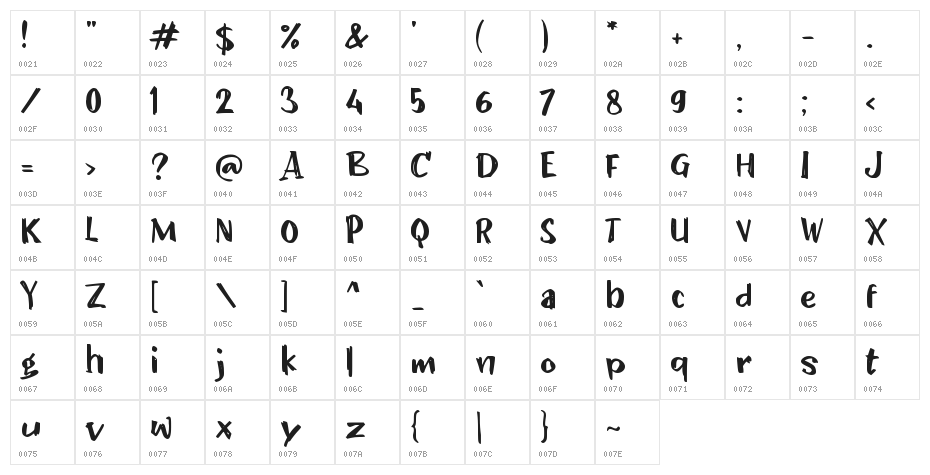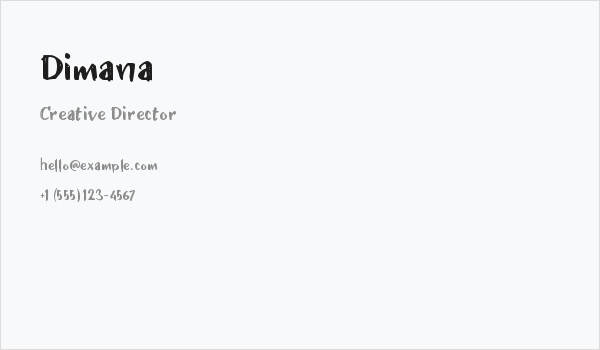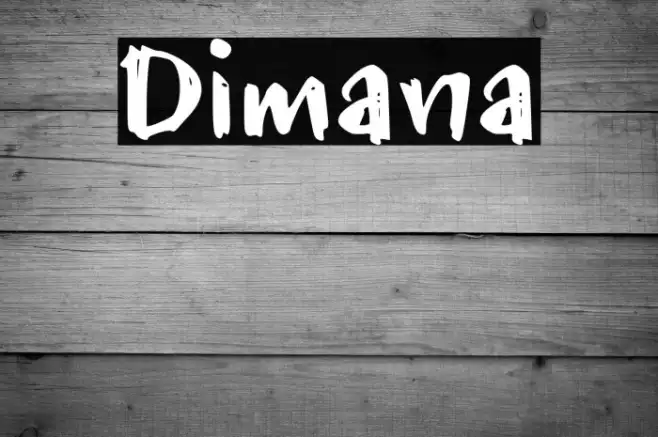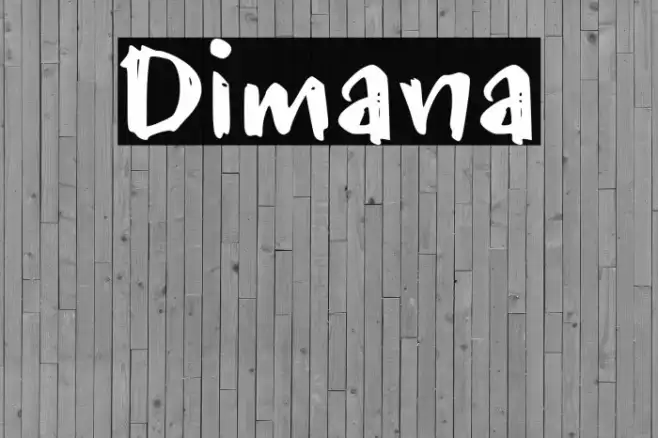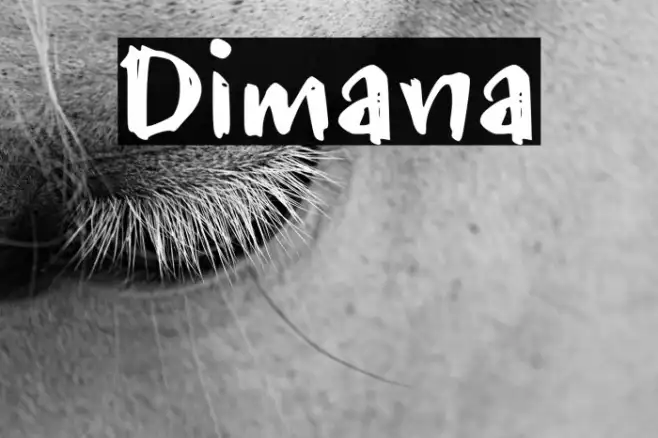
Dimana Font
Dimana Description
This font features a bold and expressive handwritten style, characterized by its dynamic and slightly irregular strokes. The uppercase letters are bold and prominent, while the lowercase letters maintain a playful and casual appearance. The numbers are consistent with the overall style, offering a bold and clear presentation. Special characters are creatively designed, adding to the font's unique personality. The overall look is energetic and informal, making it suitable for projects that require a personal touch.
DIMANA UPPERCASE
DIMANA LOWERCASE
DIMANA OTHER CHARS
| Proposed Projects | Ideal for greeting cards, posters, social media graphics, and branding projects that require a personal and informal touch. |